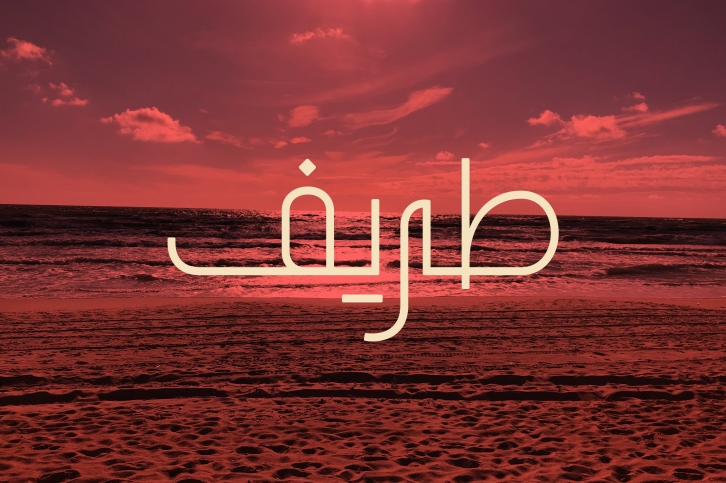
Tareef is a gorgeous font that was realeased on May 26, 2020. The font can be used in many style contexts and design environments. Perfect for invitations, magazines, websites, logos, and more! It was designed by Mostafa Abasiry and the file size is 5.28 MB. Thanks for checking out this font!